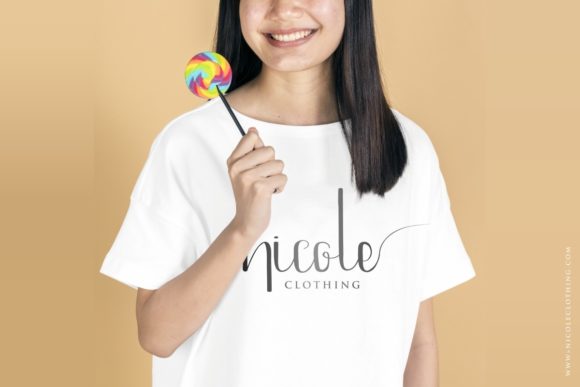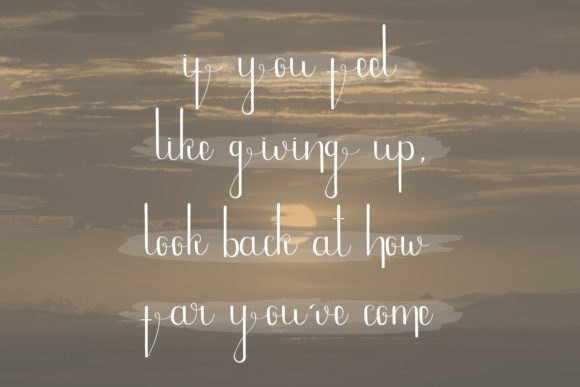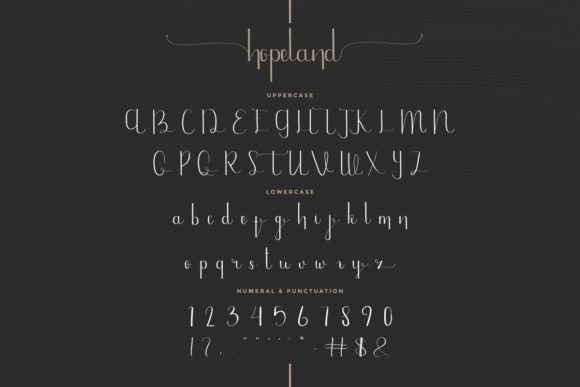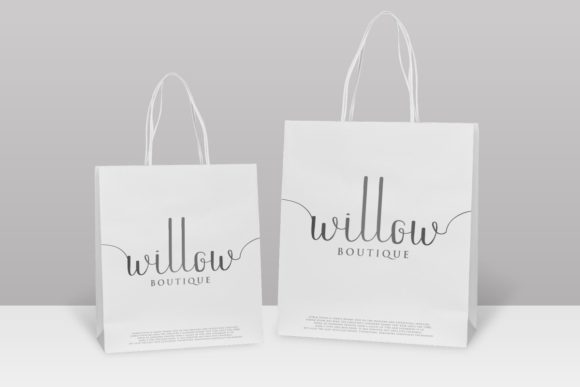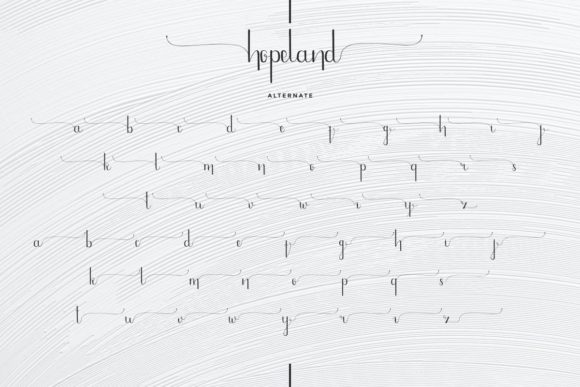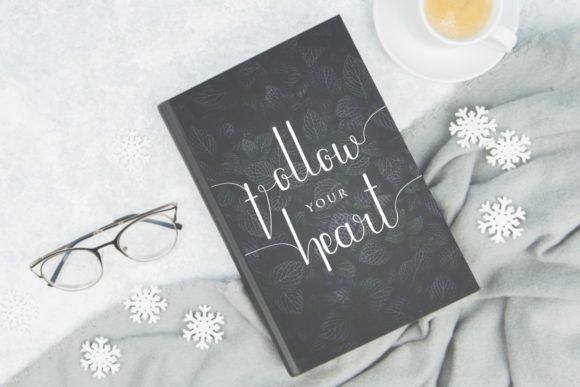
The Perfect Companion for Your Next Design Project
Have you ever been in the midst of a design project, staring at a blank canvas, and suddenly, an idea strikes? The excitement builds up, and you can’t wait to bring your vision to life. That’s exactly what happened to many designers who fell in love with the HopeLand Font. This elegant script font is designed to help you create stunning designs that exude sophistication and class.
With its thin letters and graceful style, HopeLand Font is the perfect companion for any design project. Whether you’re working on a wedding invitation, a logo, or a branding package, this font is sure to make your designs stand out. And the best part? It’s PUA encoded, making it easy to access all the glyphs and swashes you need to create gorgeous designs.
HopeLand Font Key Features
- Font Family: HopeLand Font offers a unique, hand-drawn aesthetic with a modern twist, making it perfect for various design projects.
- Character Count: The font family includes a vast range of characters, including uppercase and lowercase letters, numbers, and special characters, totaling over 1,000 glyphs.
- Font Size: HopeLand Font is designed to be highly legible at various font sizes, from 8pt to 72pt, making it suitable for both body text and display typography.
- Unique Characteristics: HopeLand Font features a distinctive, hand-crafted feel with subtle irregularities and texture, giving it a unique character that sets it apart from other fonts.
HopeLand Font Review
Overall, I found the HopeLand font to be a delightful addition to any design project. ✨ Its soft, rounded edges and gentle curves give it a friendly, approachable feel that’s perfect for branding and marketing materials.
The font’s versatility is one of its strongest features. ✨ It comes in a range of weights and styles, from light to bold, and can be used for both body text and headlines. I also appreciate the font’s OpenType features, which allow for advanced typographic control and customization.
However, there are a few limitations to consider. ⚠️ The font’s rounded edges can sometimes make it difficult to read in smaller sizes or at a distance. Additionally, the font’s ligatures can be a bit too aggressive, causing them to overlap with surrounding text in some cases.
Here are some specific pros and cons to consider:
- Soft, rounded edges for a friendly feel ✨
- Wide range of weights and styles for versatility ✨
- Advanced OpenType features for customization ✨
- Can be difficult to read in smaller sizes or at a distance ⚠️
- Ligatures can be too aggressive in some cases ⚠️
Overall, I would recommend the HopeLand font for any project where you want to create a welcoming, approachable atmosphere. With its many strengths and a few minor weaknesses, it’s a solid choice for designers looking for a versatile, high-quality font.
Tips for Getting the Most Out of HopeLand Font
Use HopeLand Font for designs that require a friendly and approachable tone.
Pair it with bright and pastel colors for a whimsical effect.
Use HopeLand Font for:
Branding and marketing materials.
Children’s educational materials.
Alternatives to HopeLand Font
Great Vibes Font is a modern, elegant script font perfect for creating a friendly and approachable atmosphere. It is ideal for use in wedding invitations, greeting cards, and other designs that require a touch of sophistication. Great Vibes Font has a more flowing and cursive feel compared to HopeLand Font, making it a great option for designs that require a softer, more whimsical look.
Carolyna Pro Font is a luxurious, high-end script font ideal for use in high-end designs, such as luxury branding, wedding invitations, and fine art prints. It has a more refined and elegant feel compared to HopeLand Font, making it a great option for designs that require a sense of sophistication and luxury. Carolyna Pro Font is also highly customizable, allowing designers to adjust the font to fit their specific design needs.